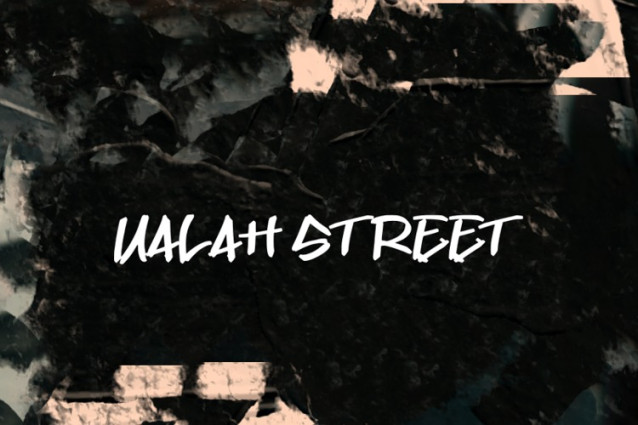
Ualah Street Font
Ualah Street Font – A versatile font that combines urban style with modern professionalism. Ideal for designers who want to make a bold statement while maintaining legibility in their projects. Discover how this combination of tradition and urban spirit can elevate your designs.